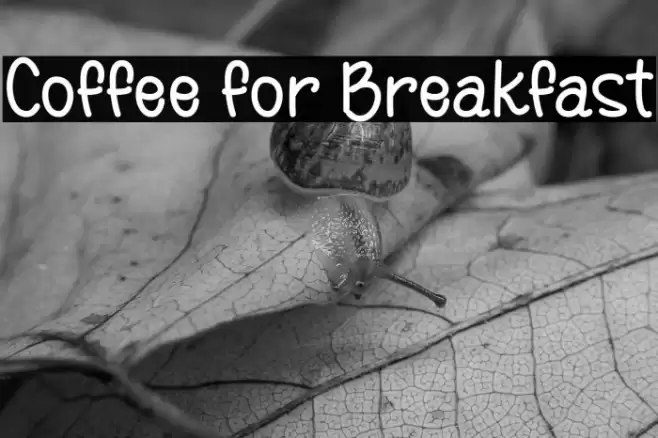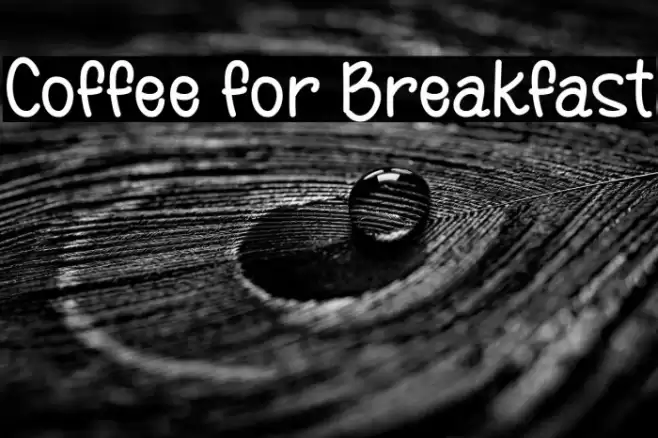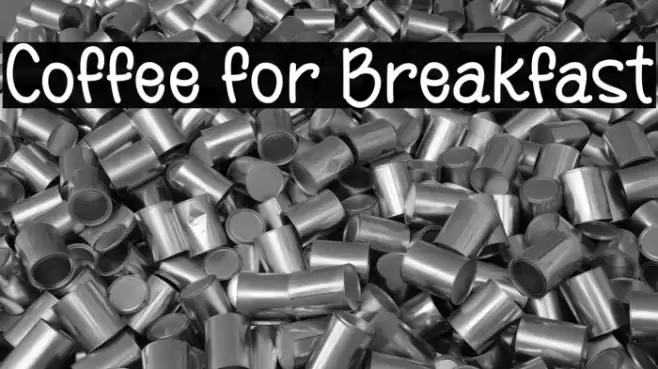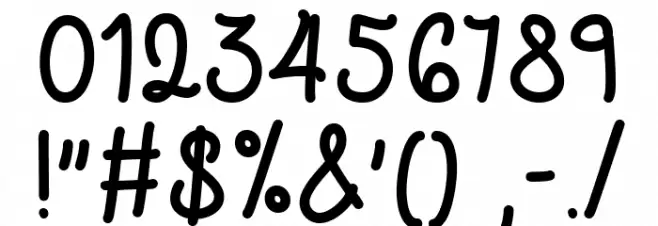
Coffee for Breakfast Font
Coffee for Breakfast Description
This playful and casual font features a handwritten style with rounded edges and a friendly appearance. The letters are slightly irregular, adding a personal touch that mimics natural handwriting. The uppercase and lowercase characters maintain a consistent flow, while the numerals and special characters blend seamlessly into the overall design. This font exudes a warm and approachable vibe, making it ideal for projects that require a touch of personality and informality.
A playful, handwritten font with rounded edges and a casual style from Uncategorized fonts.
- Proposed Projects: Ideal for greeting cards, children's books, casual branding, and social media graphics.
- Overall Style: Casual, Playful
- Use Case: Logos, Headlines, Informal Text